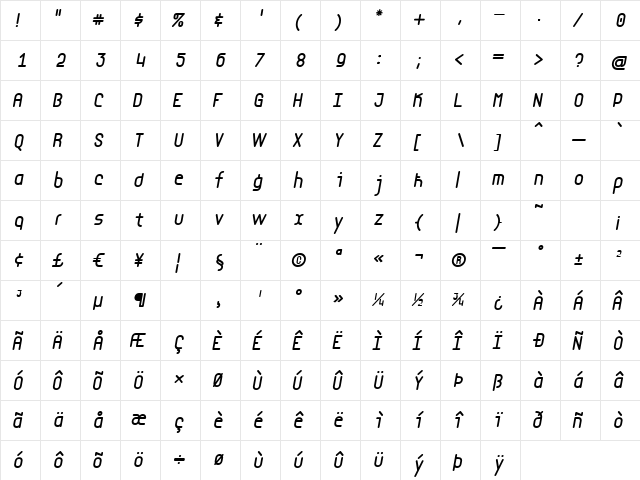
LAmemoire QuiFlanche
Design Context for LAmemoire Typeface
LAmemoire is a composed and adaptable typeface that performs quietly and consistently across a wide range of design contexts.